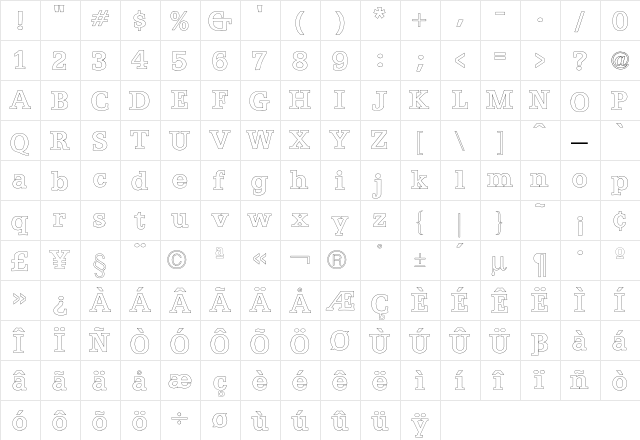
Egyptian Outline
| Style | Outline |
Design Context for Egyptian Typeface
Egyptian is built around its visual character rather than neutral utility — its distinctive forms are designed to make an impression at display sizes.
Font Pairing: Pair with a clean neutral sans-serif for body copy to let Egyptian's character lead without overwhelming the composition.
Pro Tip: Treat Egyptian as the centrepiece of your typographic hierarchy. One strong heading set in a decorative face can carry an entire layout.